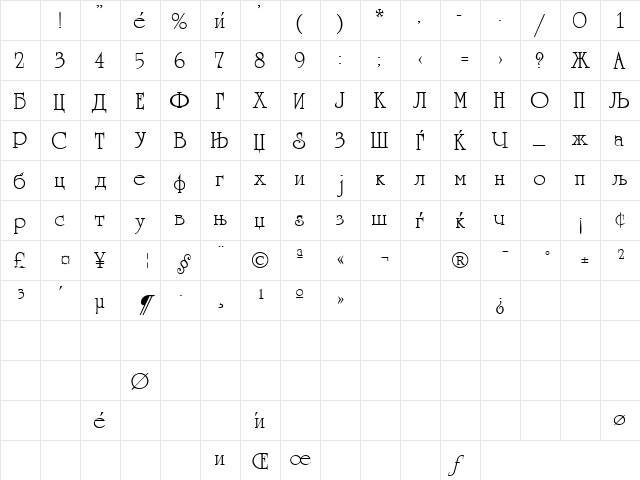
Complete Macedonian Unicorn Normal glyph index. Displaying only characters natively supported by Macedonian Unicorn Normal font.
Macedonian Unicorn is a composed and adaptable typeface that performs quietly and consistently across a wide range of design contexts.